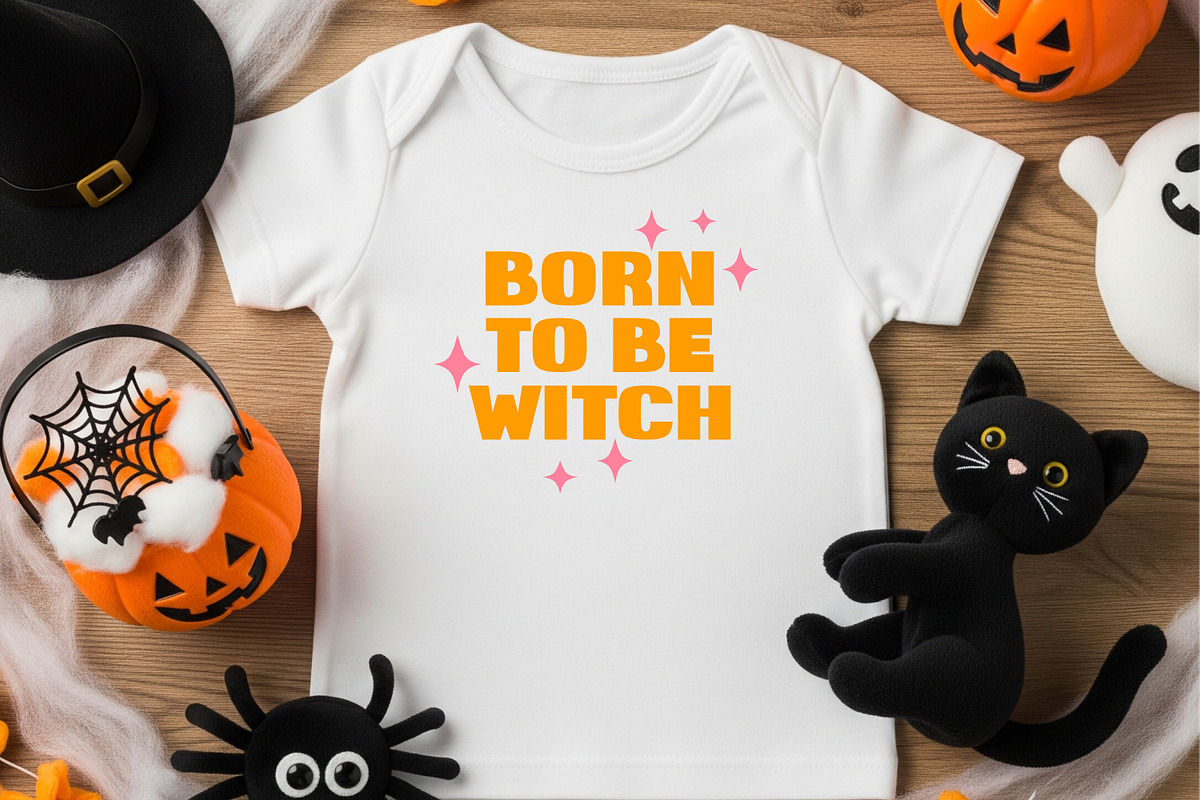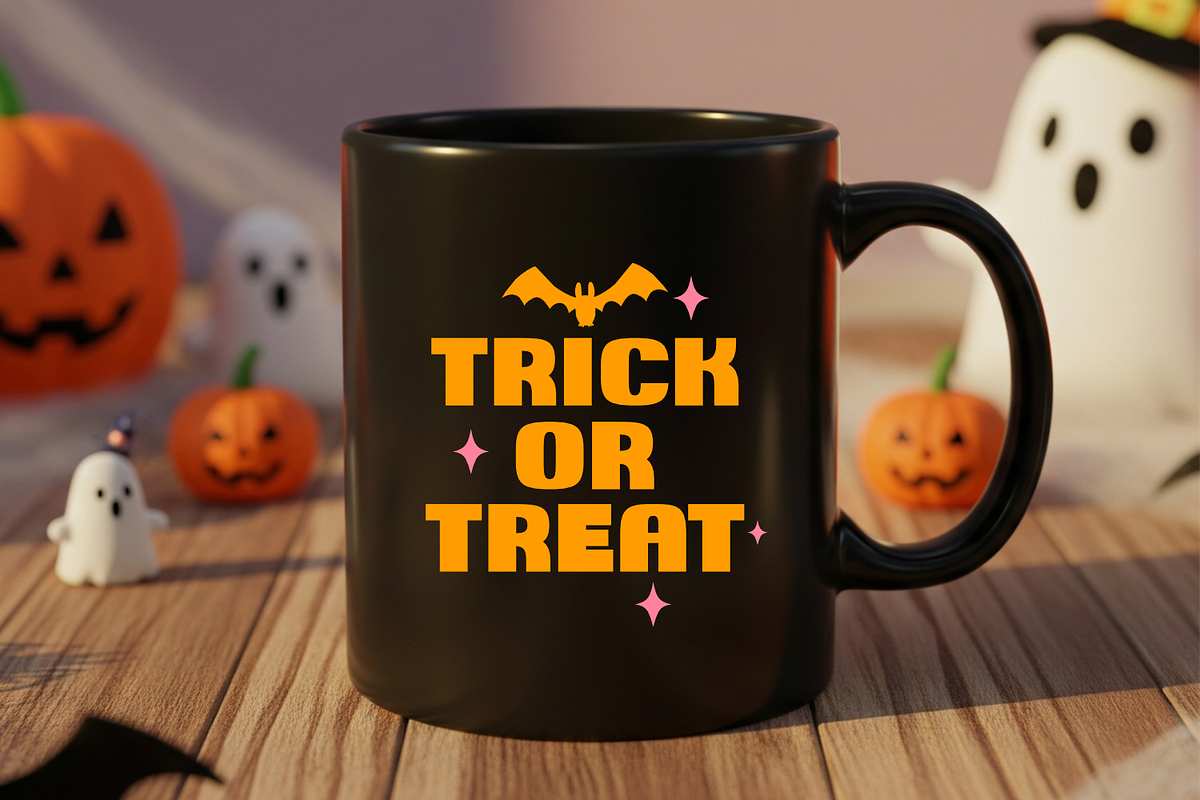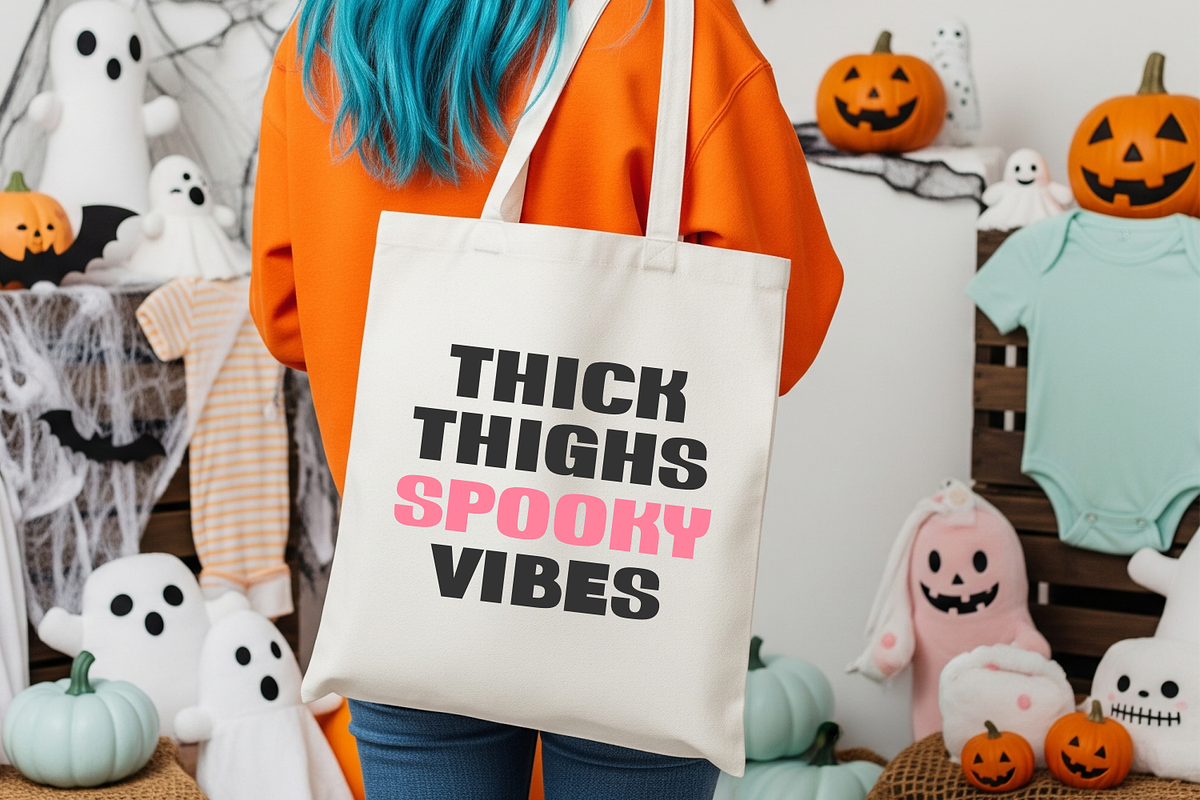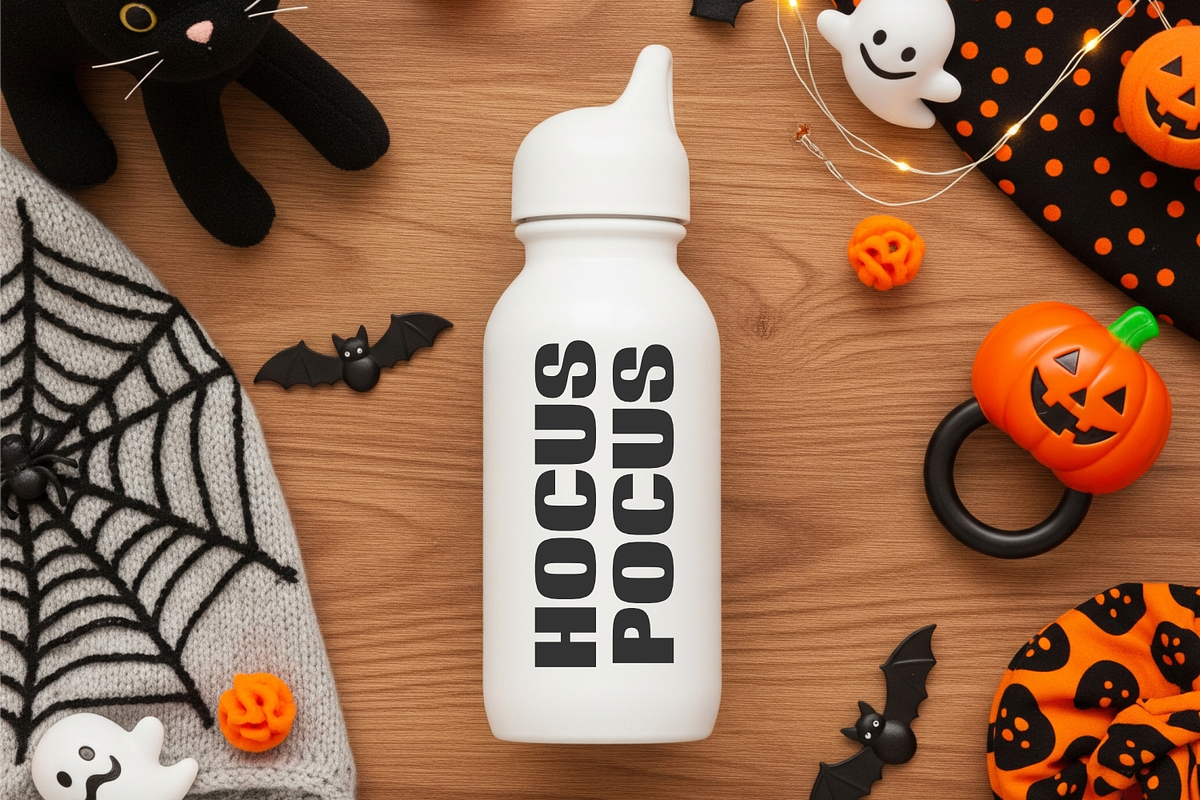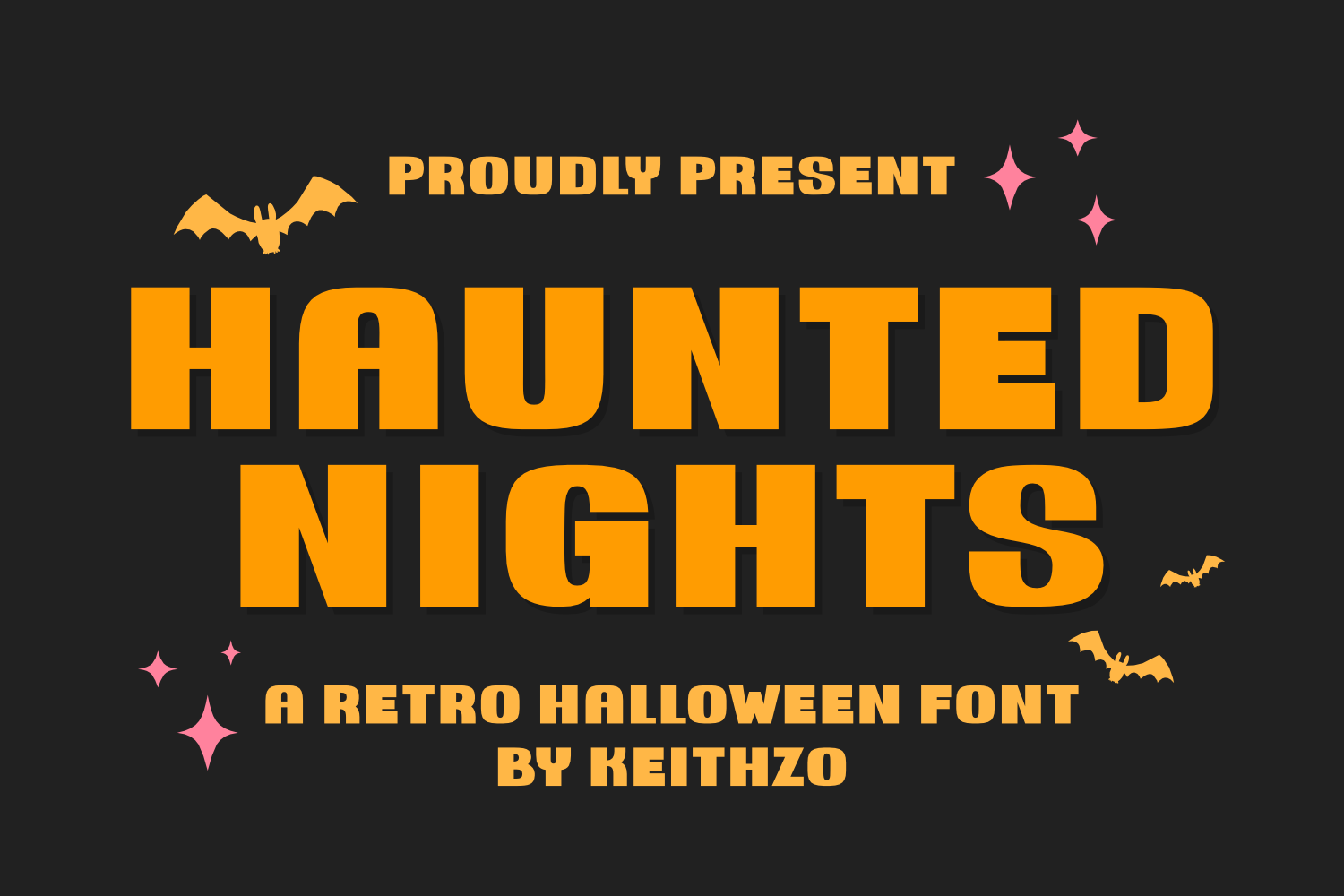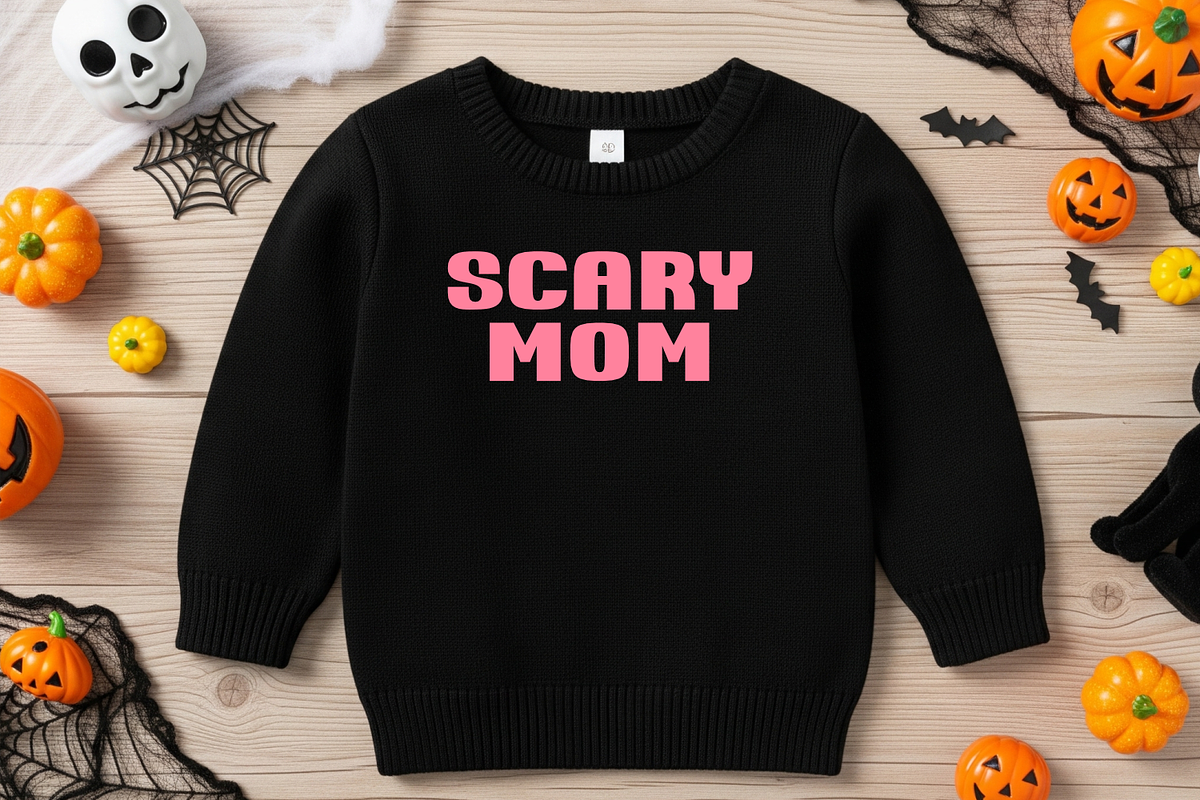
Haunted Nights - Halloween Font
Experience the thrill of the spooky season with the Haunted Nights font, a unique display sans serif perfect for all your eerie creative needs. This distinctive font infuses a ghoulish aesthetic into various personal and commercial projects, making it just right for a Halloween-themed t-shirt, a haunting mug, or a chilling tumbler. It’s even an ideal choice for adding an element of fright to tote bags and pillows. Haunted Nights truly shines in the publishing world, imbuing magazines with an uncanny aura. It is also an impressive add-on for making Halloween posters come alive or adding a touch of the macabre to your crafts. Unleash your dark creativity with this incredibly versatile Haunted Nights font.